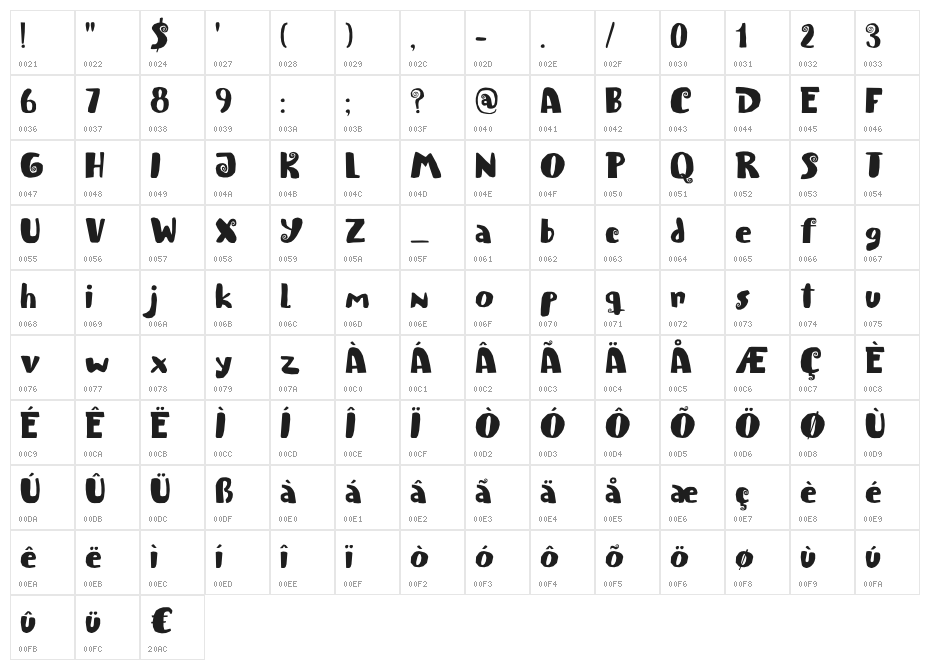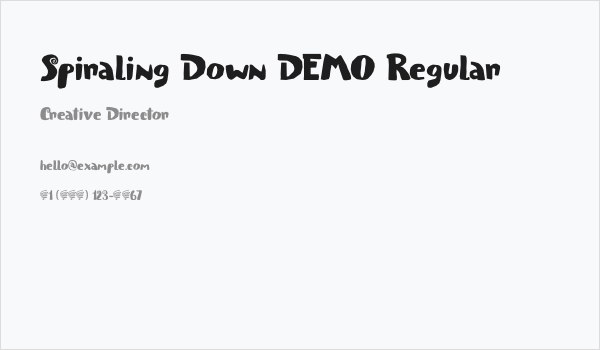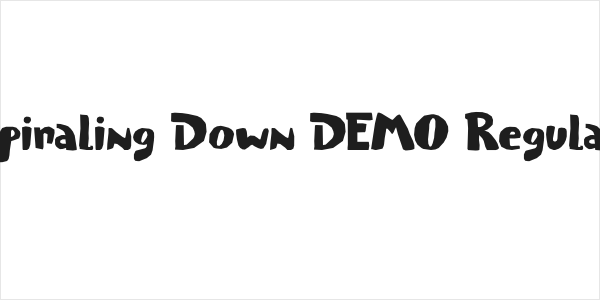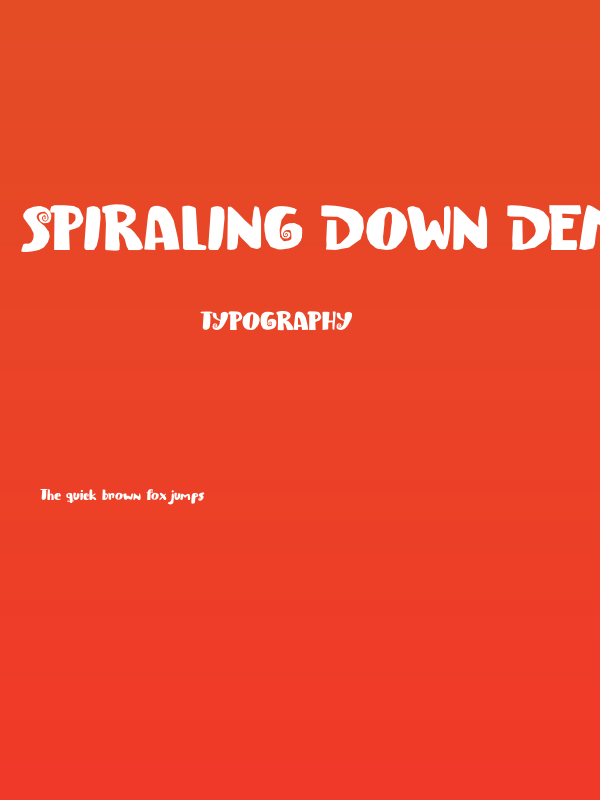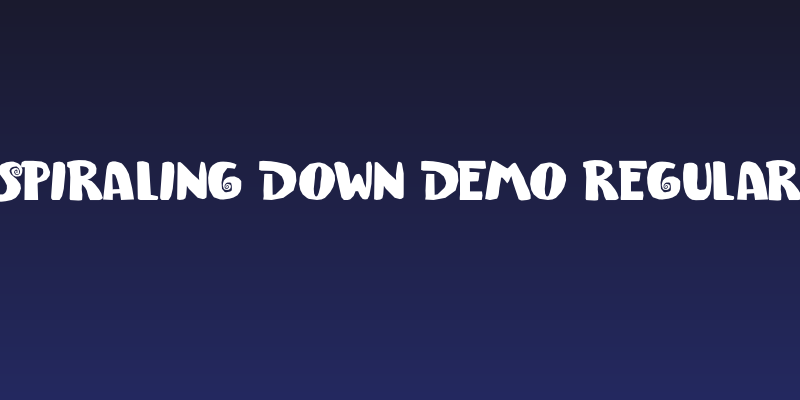
Spiraling Down DEMO Regular Font
Spiraling Down DEMO Regular Description
This font features a whimsical and playful design, characterized by its bold and irregular letterforms. The uppercase and lowercase letters exhibit a unique spiral or swirl element, adding a sense of movement and creativity. The numbers and special characters maintain this playful theme, with some characters incorporating exaggerated spiral motifs. The overall appearance is bold and eye-catching, making it suitable for projects that require a fun and dynamic aesthetic. The font's distinct style is perfect for capturing attention and conveying a sense of whimsy.